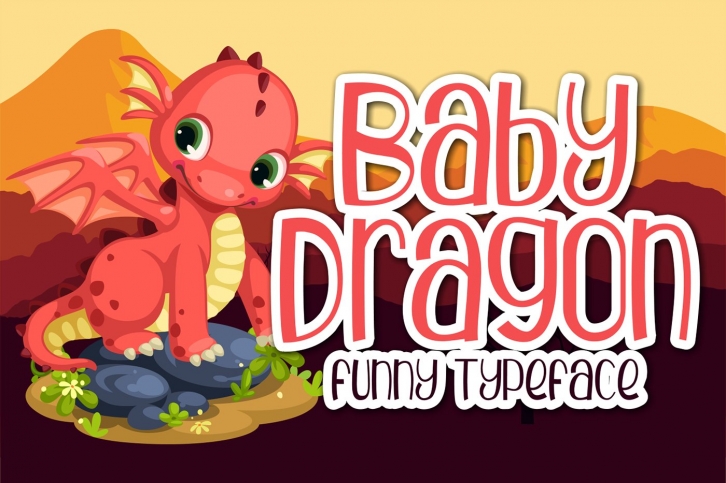
Baby Dragon is a great font that was designed by Brithos Type. Imagine the amount of combinations you can create using this font! The archive is 8.19 MB and it was released on June 13, 2020. Baby Dragon looks beautiful on wedding invitations, greeting cards, logos, posters, labels, t-shirt designs, logos, business cards and is perfect for use in ink or watercolor works, fashion, magazines, packaging and food menus, children's books and more!